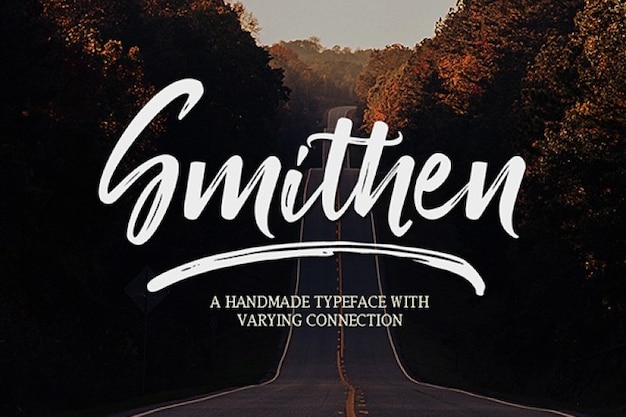
Smithen Script Font
Hit the road with the Smithen font. Its colors and design will give your projects a new breeze. Perfect in your backgrounds, posters, flyers and any other of your creations. Download it now and set out on a new journey of creativity!